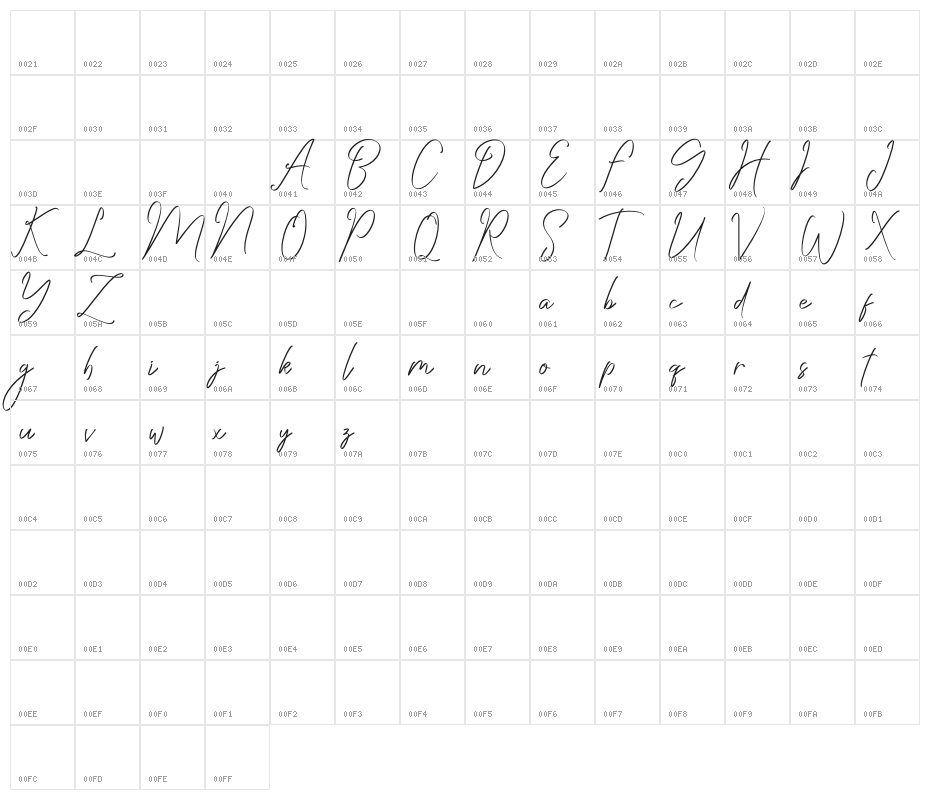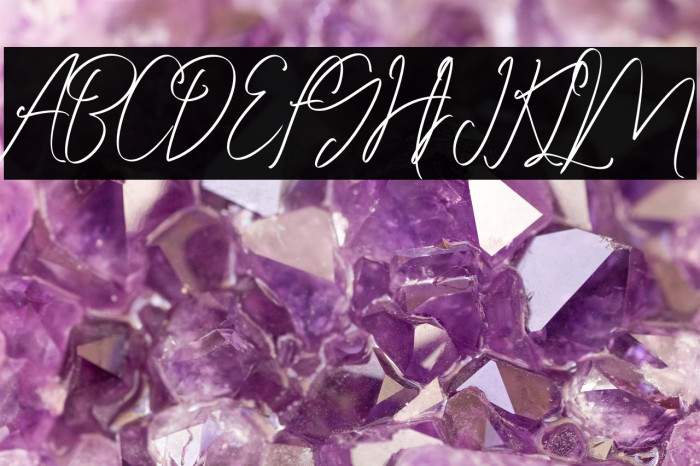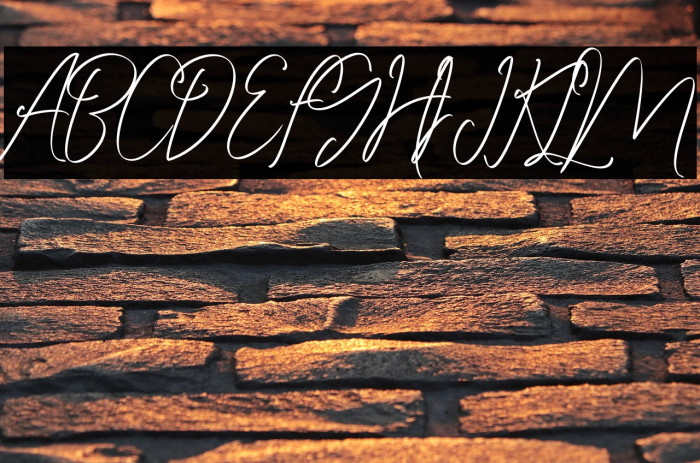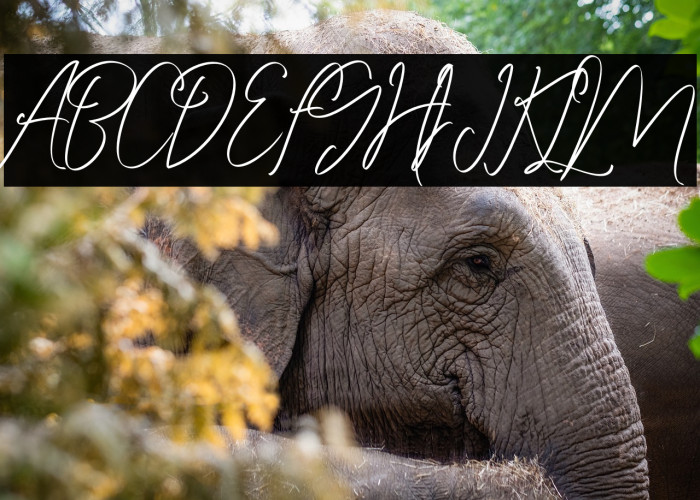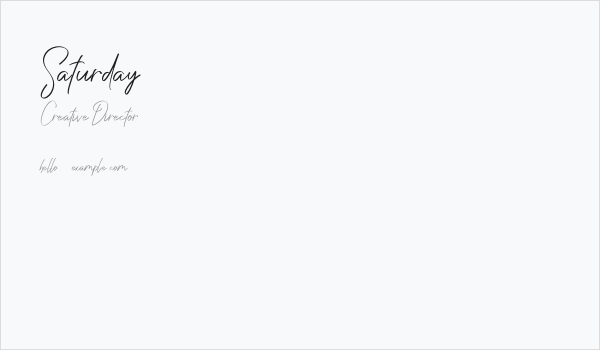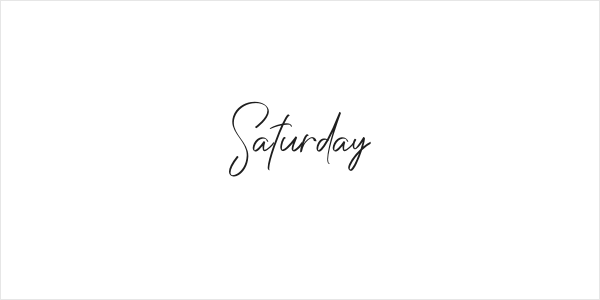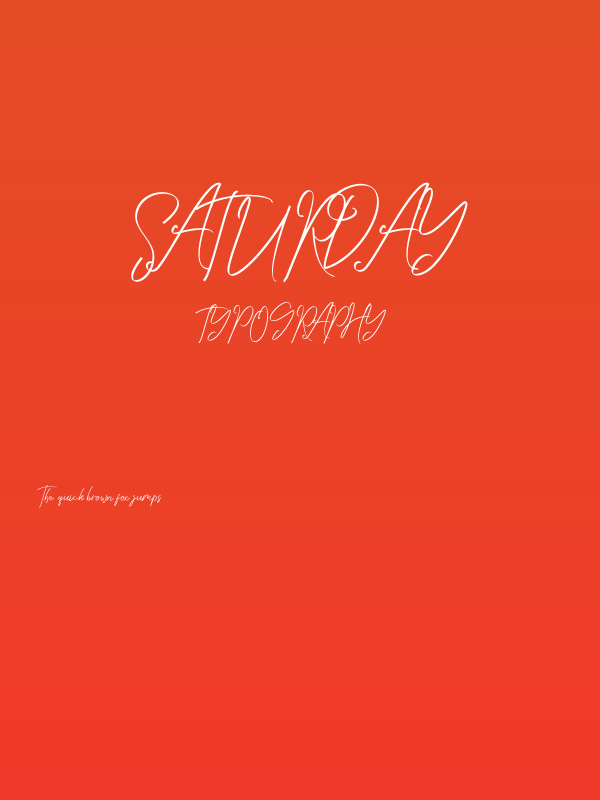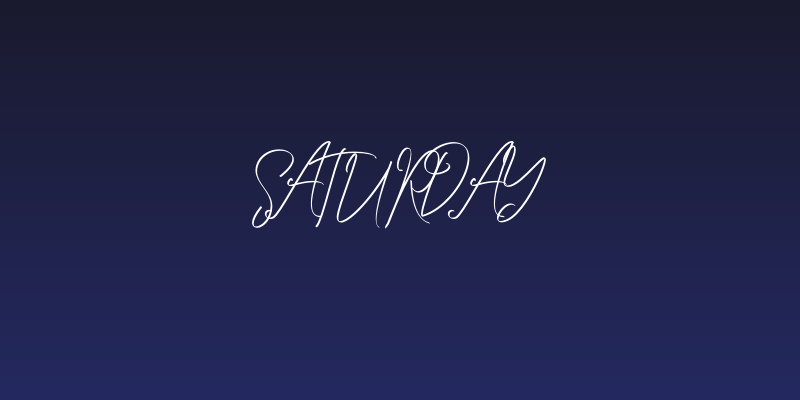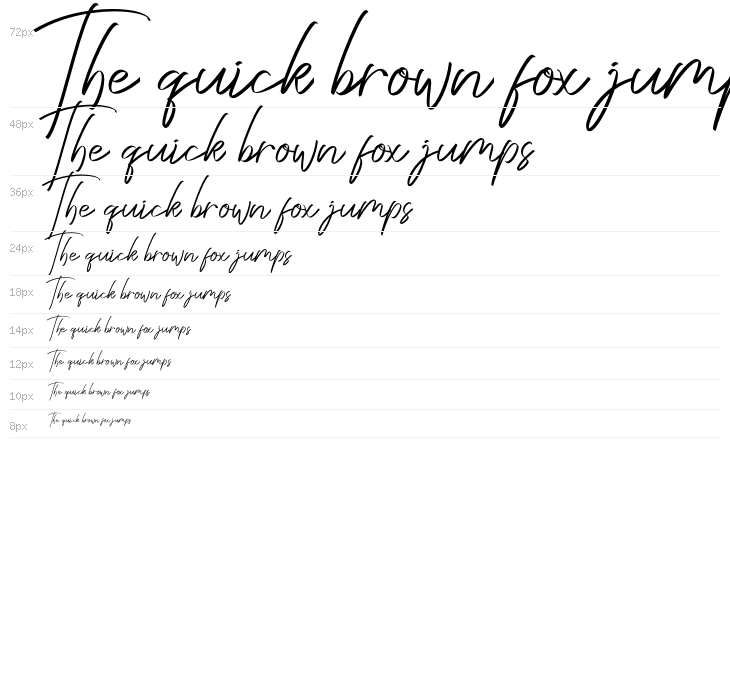
Saturday Font
Saturday Description
This font features an elegant, flowing script style that mimics natural handwriting with a sophisticated flair. The letters are interconnected with smooth, sweeping strokes, giving it a dynamic and fluid appearance. The uppercase letters are tall and graceful, while the lowercase letters maintain a consistent slant, enhancing the cursive effect. The overall design is both artistic and legible, making it suitable for creative projects that require a personal touch. The font's unique character is further emphasized by its varied stroke thickness, adding depth and visual interest.
| Overall Style | Elegant, Artistic |
| Proposed Projects | Ideal for wedding invitations, personal branding, greeting cards, and artistic projects. |